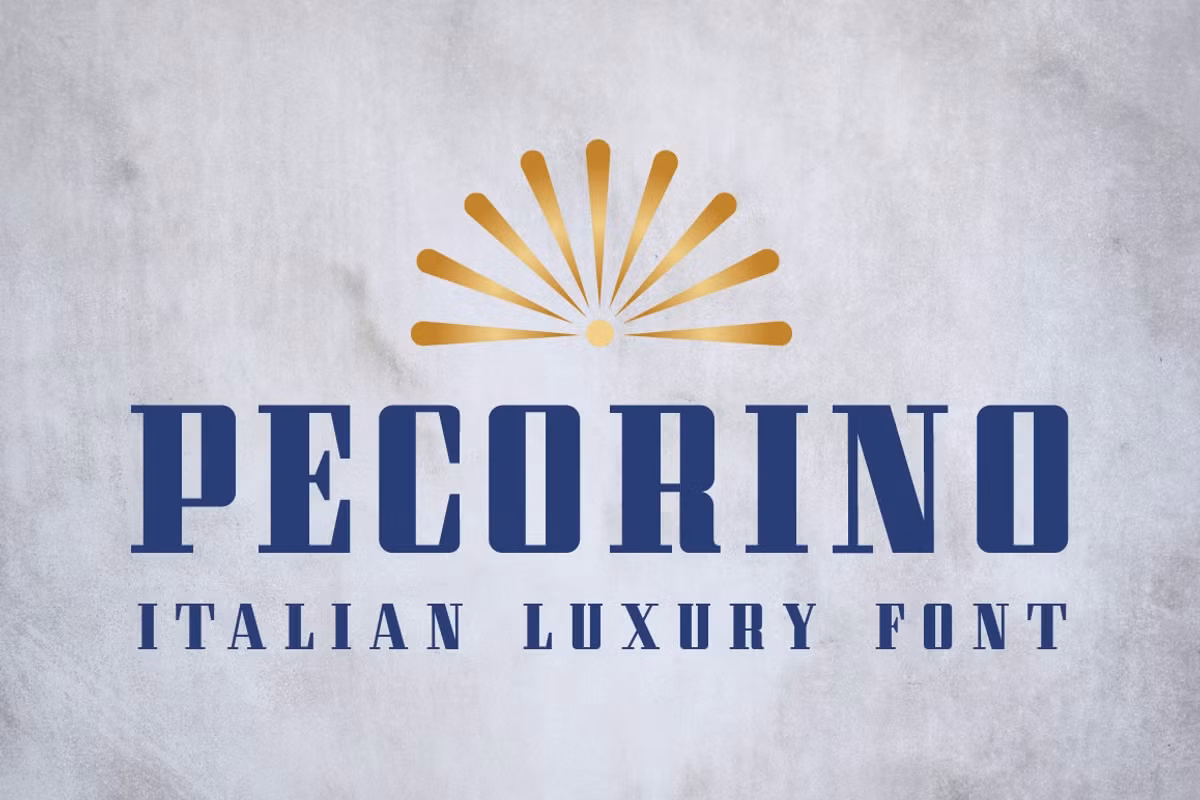
Pecorino Font Free Download is a stylish and modern serif typeface with a touch of elegance and sophistication. With its unique curves, sharp serifs, and clean lines, Pecorino is perfect for luxury branding, editorial design, logos, and upscale product packaging. The balanced design offers a blend of contemporary chic and classic refinement, making it versatile for both professional and creative projects.
Whether you're working on high-end branding or creating sophisticated print materials, Pecorino’s refined aesthetic ensures that your typography will stand out with confidence and style.